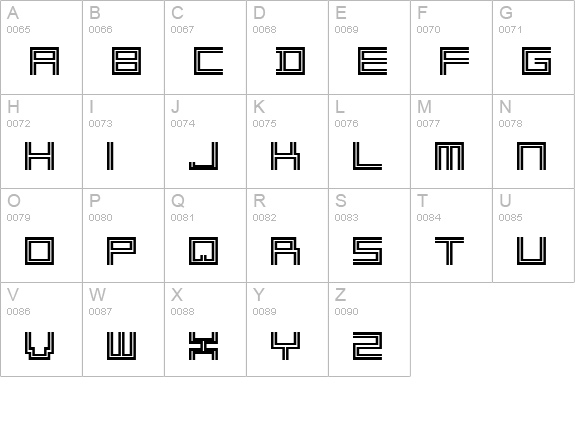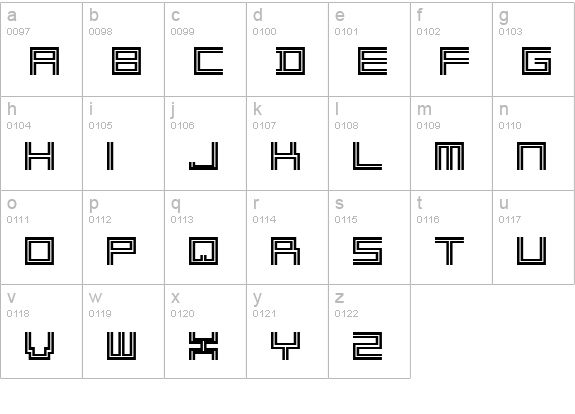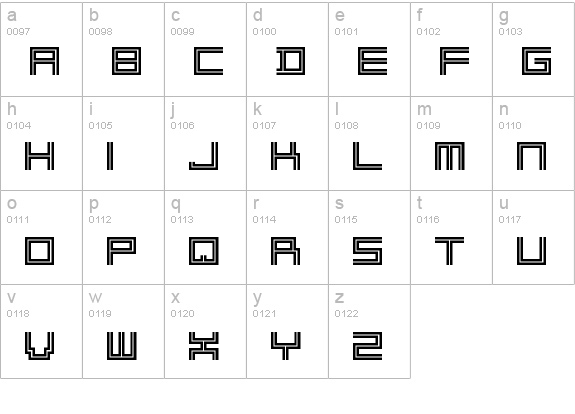
2 Lines Font Details
Introducing 2 Lines font, a stunning typeface that effortlessly combines elegance and modernity. With its sleek and streamlined letterforms, this font is perfect for adding a touch of sophistication to any design project. Each character is meticulously crafted, featuring clean lines and sharp angles that create a sense of precision and refinement. But what sets 2 Lines font apart is not just its impeccable design—it's also its accessibility. This font is freely available to download at FontsMarket.com, making it an invaluable resource for designers and creatives alike. Whether you're working on a personal project or a professional assignment, you can now elevate your work with this exceptional font without breaking the bank. 2 Lines font is versatile and adaptable, making it suitable for a wide range of applications. From logos and branding materials to packaging designs and website headers, this font will effortlessly enhance the visual impact of your projects. Its legibility and clarity ensure that your message is communicated effectively, while its unique style adds a touch of flair and sophistication. With its sleek and modern aesthetic, 2 Lines font is perfect for those who seek a contemporary look with a hint of elegance. Its versatility and flexibility make it an ideal choice for both print and digital designs. Whether you're designing a magazine layout, creating eye-catching social media graphics, or crafting a stylish website, this font will make your work stand out from the crowd. So why wait? Take advantage of this amazing opportunity and download 2 Lines font for free at FontsMarket.com. With its impeccable design, accessibility, and versatility, this font is a must-have for any designer or creative professional. Don't miss out on the chance to elevate your work and leave a lasting impression with this exceptional typeface.